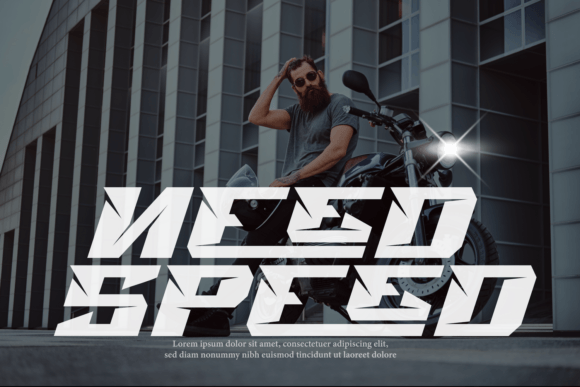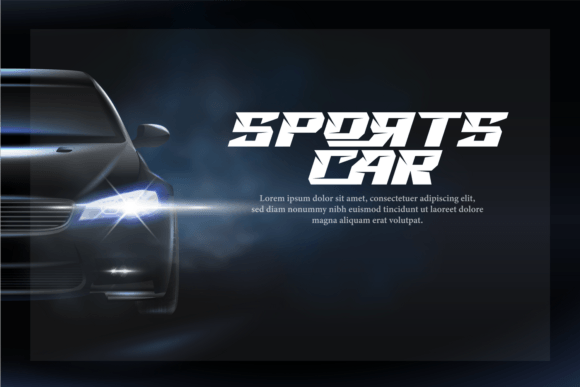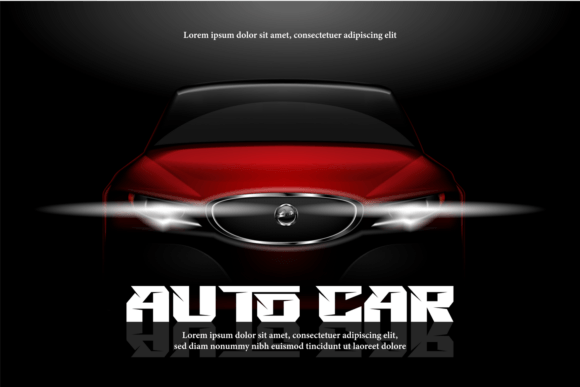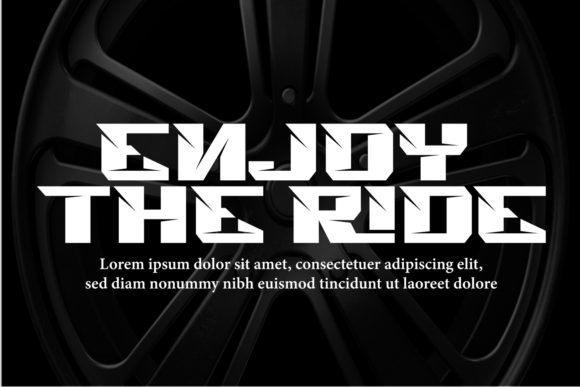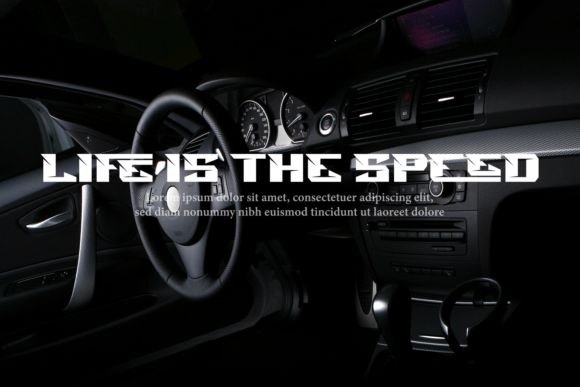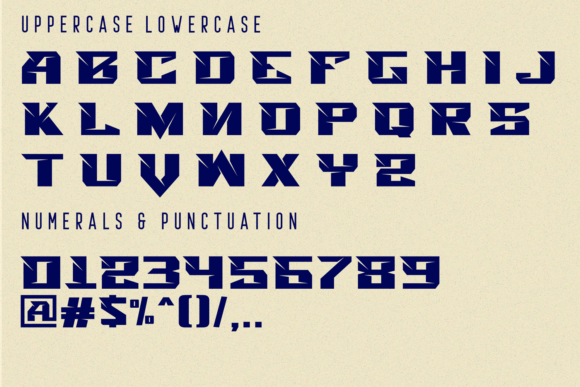
Introducing Great Sport Font: The Ultimate Choice for Modern Sports Designs
Are you looking for a font that can capture the essence of speed, energy, and dynamism in your sports-related designs? Look no further than Great Sport Font, a cool and modern sports display font that’s perfect for creating stunning visuals for fast car racing sports titles, running matches, cycling, automotive game logos, and more.
What Makes Great Sport Font Stand Out?
Great Sport Font is designed to evoke the thrill and excitement of sports, making it an ideal choice for designers and crafters who want to create engaging and dynamic text. Its modern and sleek design ensures that your text stands out from the crowd, whether you’re creating a logo, title, or monogram.
With Great Sport Font, you can add a touch of sophistication and style to your designs, making it perfect for a wide range of applications, from sports branding and advertising to packaging and merchandise.
Key Features of Great Sport Font
- Modern and sleek design: Great Sport Font boasts a contemporary design that’s perfect for creating modern and dynamic text.
- Highly versatile: This font is suitable for a wide range of applications, from sports titles and logos to monograms and more.
- Easy to read: Despite its bold and dynamic design, Great Sport Font is easy to read, making it perfect for use in titles, headings, and other display text.
- Customizable: With Great Sport Font, you can experiment with different colors, sizes, and styles to create a unique look that suits your brand or design.
Use Cases for Great Sport Font
Great Sport Font is perfect for a variety of design projects, including:
- Fast car racing sports titles: Add a touch of speed and excitement to your racing titles with Great Sport Font.
- Running matches: Create dynamic and engaging titles for running events and competitions.
- Cycling: Use Great Sport Font to create bold and eye-catching titles for cycling events and logos.
- Automotive game logos: Add a touch of style and sophistication to your automotive game logos with Great Sport Font.
- Monograms: Create stunning monograms with Great Sport Font, perfect for sports teams, athletes, and brands.
Why Choose Great Sport Font?
When it comes to choosing a font for your sports-related designs, there are many options available. However, Great Sport Font stands out from the crowd due to its unique combination of style, versatility, and readability.
Here are just a few reasons why Great Sport Font is an excellent choice for designers and crafters:
- Unique design: Great Sport Font boasts a distinctive design that’s sure to grab attention.
- High-quality: This font is designed to deliver high-quality results, whether you’re working on a large-scale project or a small design.
Great Sport Font is an excellent choice for designers and crafters who want to create stunning sports-related designs. Its modern and sleek design, versatility, and readability make it perfect for a wide range of applications, from sports titles and logos to monograms and more.